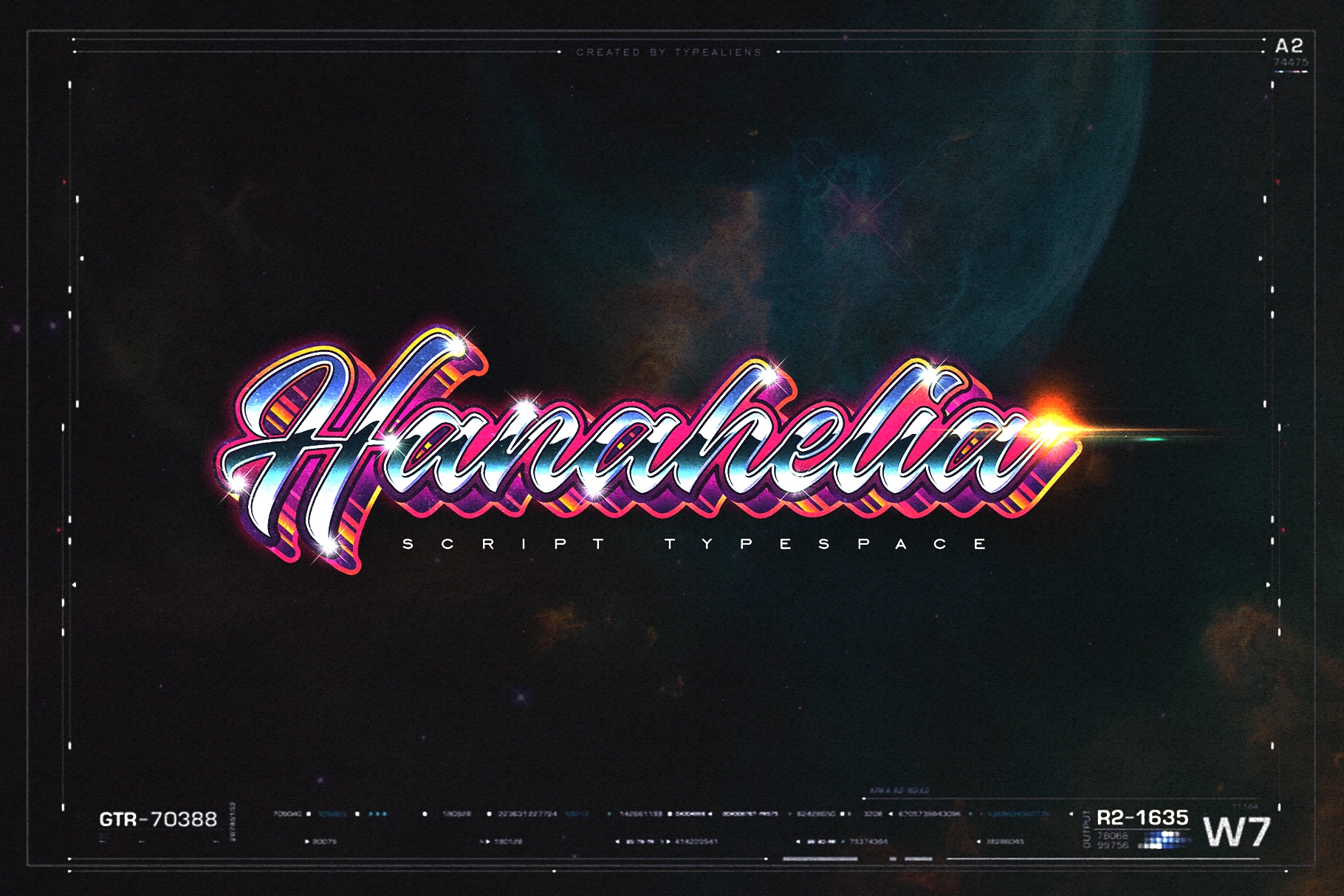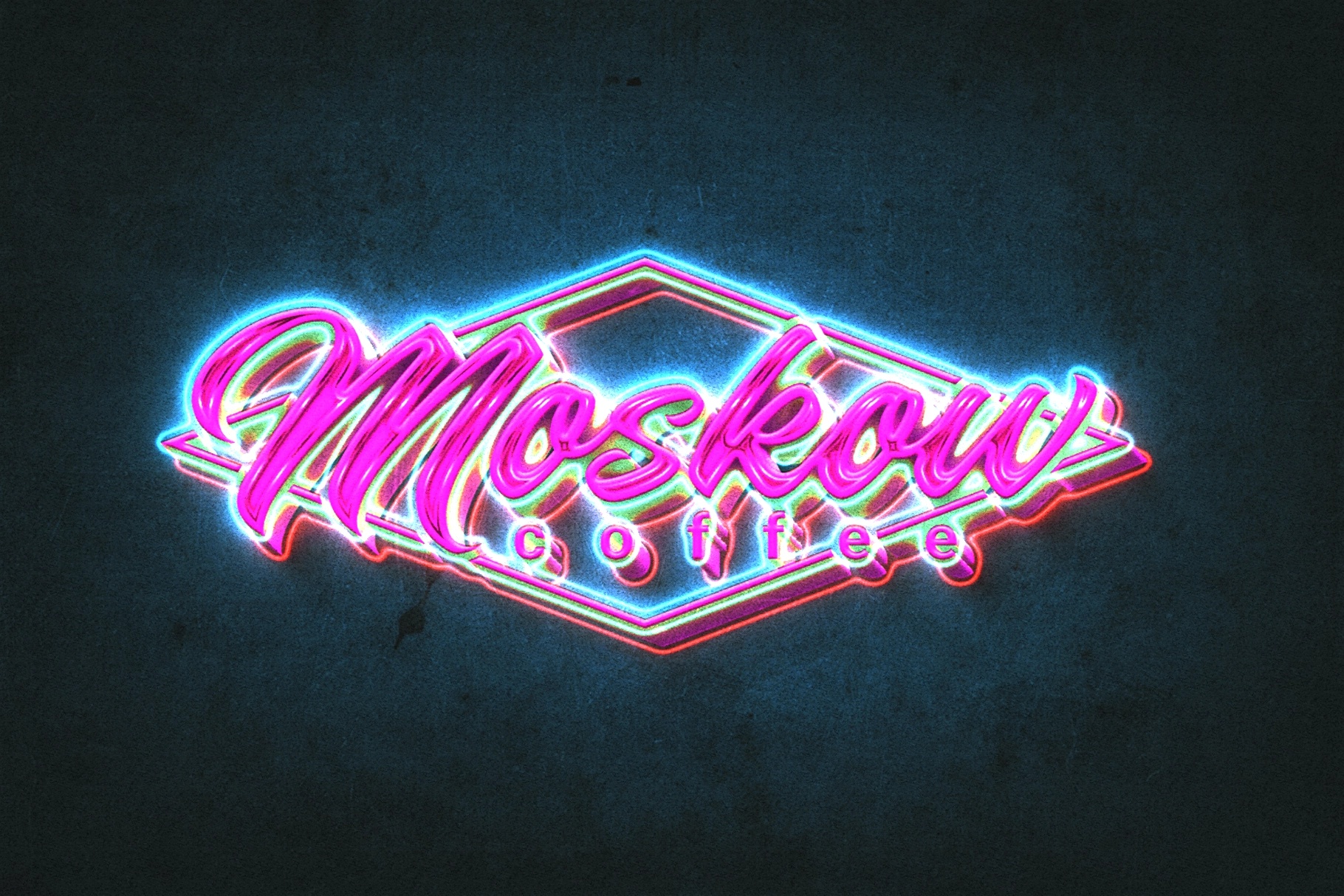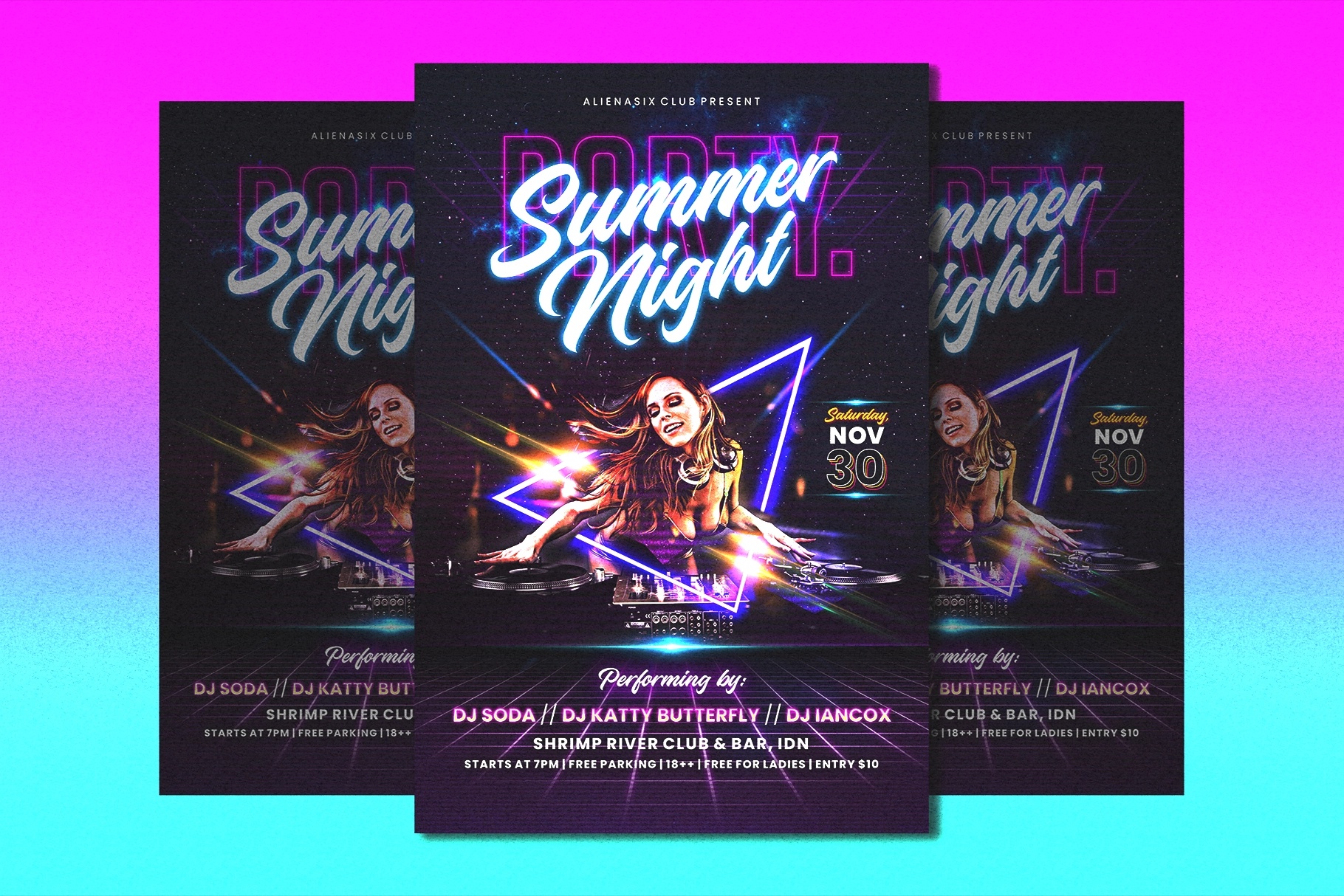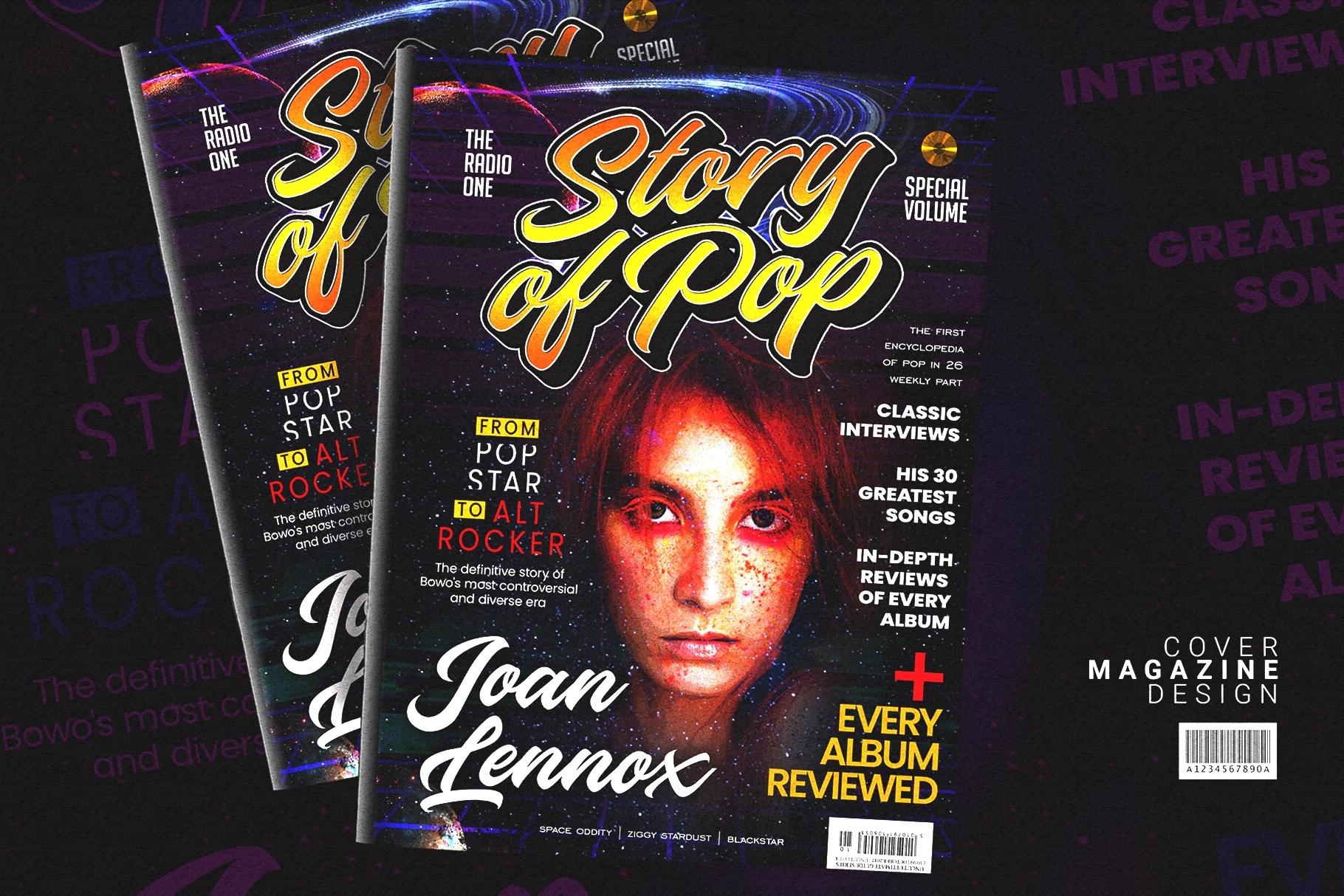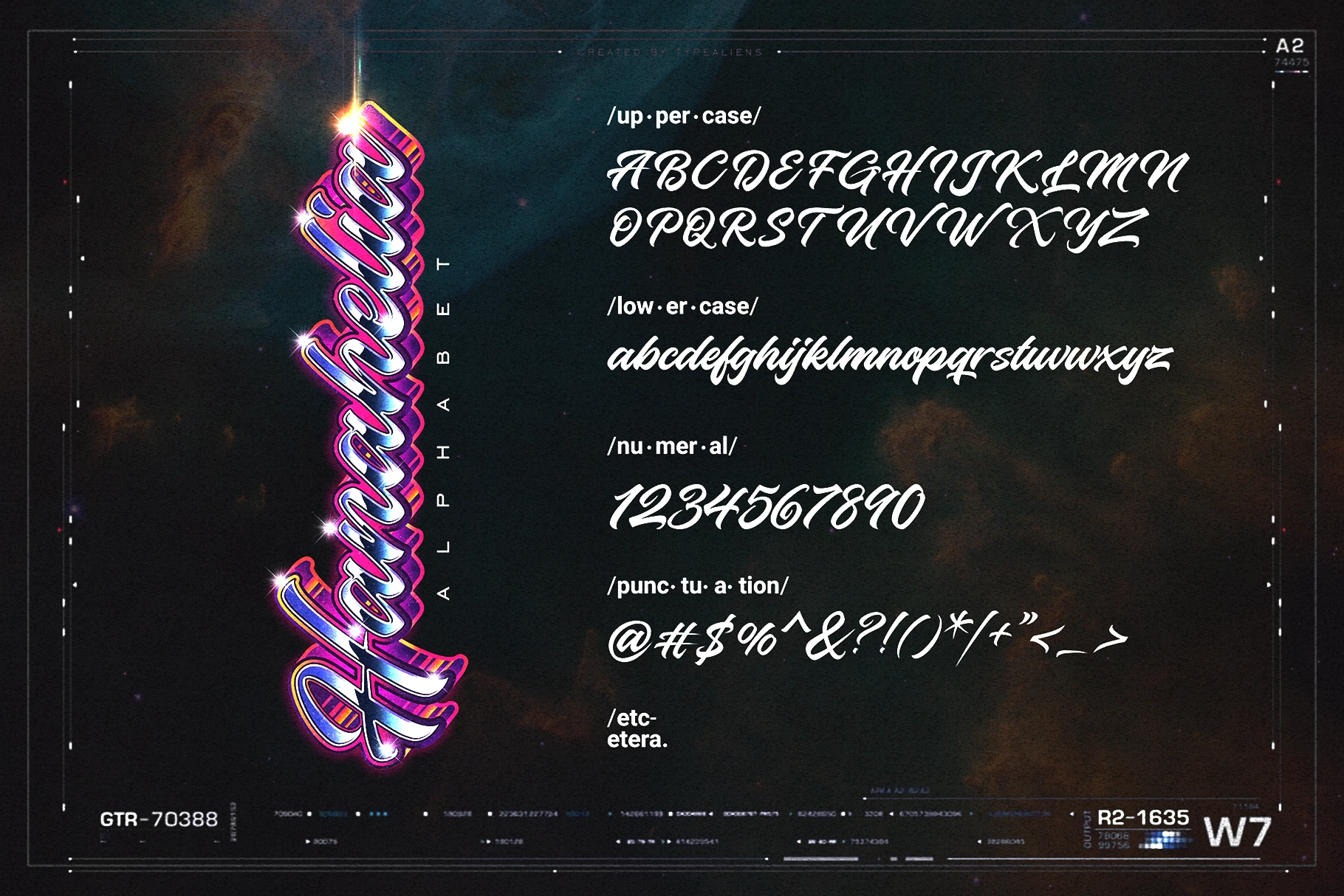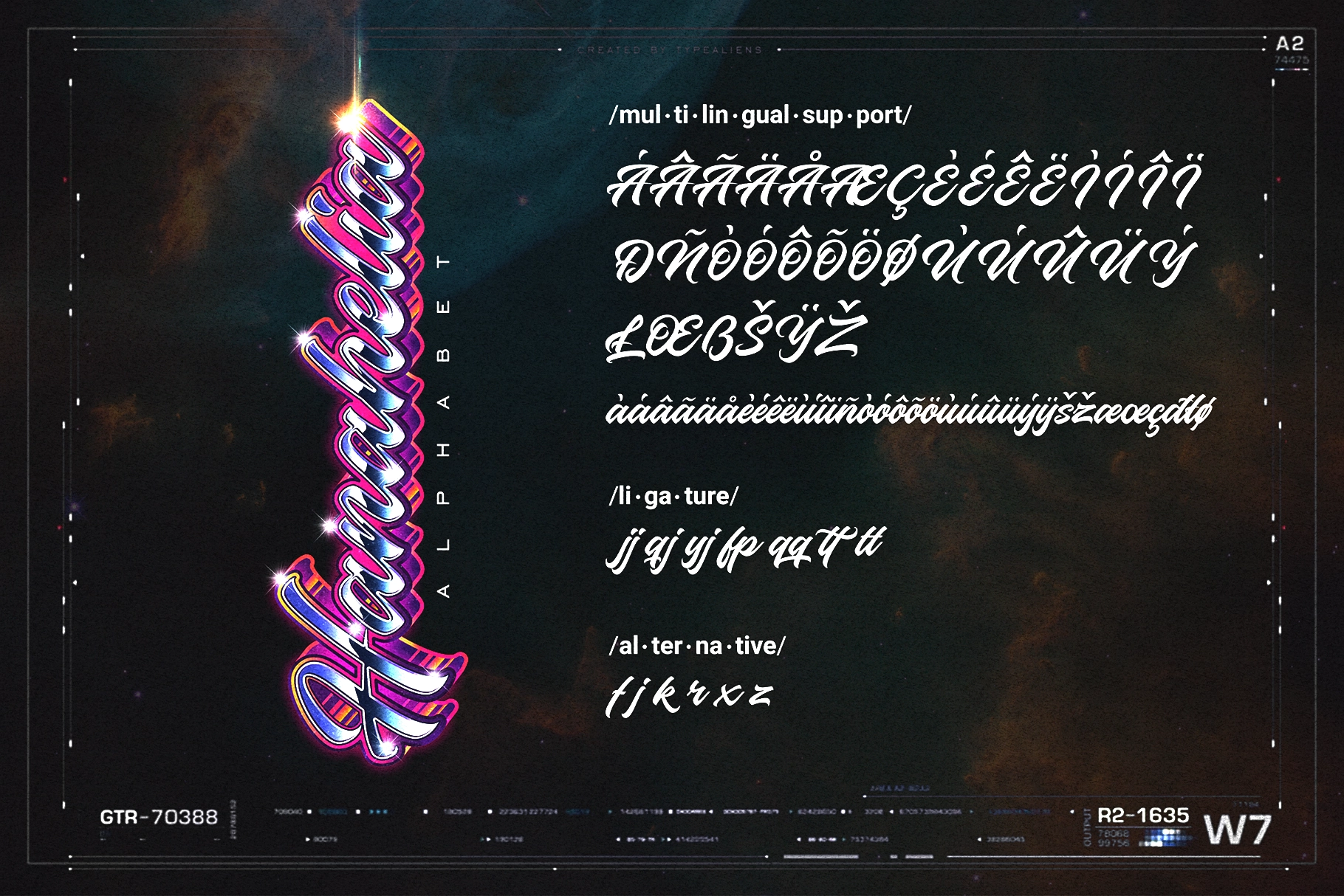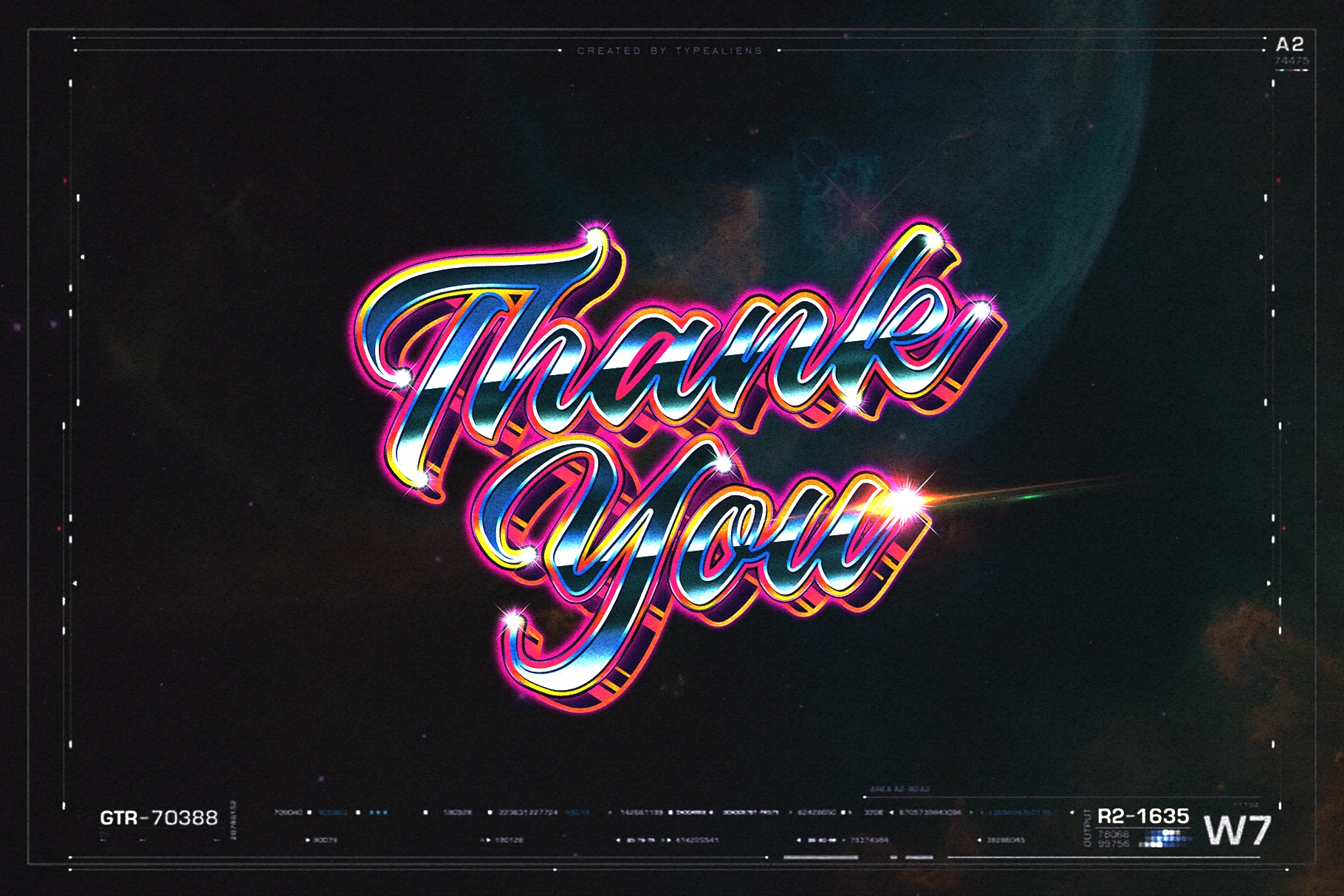
Hanahelia — Retro Script Font
Hanahelia is a retro script font built on the heavy brush letterforms that defined 80s arcade signage, neon-lit storefronts, and sports team lettering. The strokes are thick and confident — each character connects through overlapping loops and tight joins that give words a stacked, kinetic rhythm. Counters are shallow, the angle is assertive, and the overall weight lands closer to a custom logo treatment than a text typeface.
It works best at display scale, where the dense joins and high contrast read as intended. Use it for streetwear logos, gig posters, club night flyers, energy drink labels, merch drops, fight cards, and neon signage concepts. The script holds up well with chromatic layering, extrusions, and glitch effects applied on top — the letterforms are sturdy enough to take the treatment.
- Uppercase & lowercase;
- Numerals, punctuation & symbols;
- Ligatures & alternates;